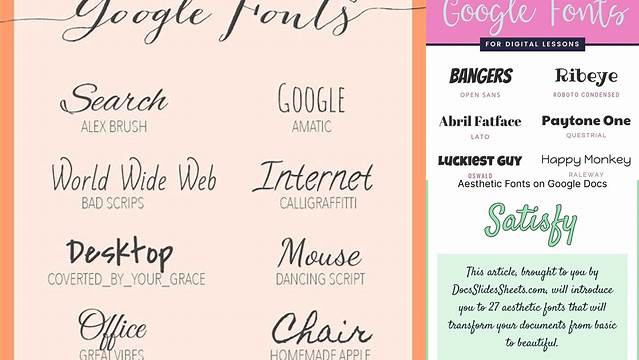
Aesthetic Cursive Fonts On Google Docs: Guide
Hey guys! Ever wanted to make your Google Docs look super chic and stylish? One of the easiest ways to do that is by using aesthetic cursive fonts. They add a touch of elegance and personality to your documents, whether you're writing a cover letter, a creative piece, or even just taking notes. This guide will walk you through everything you need to know about using aesthetic cursive fonts in Google Docs, from finding them to installing them and making the most of them. Let’s dive in!
1. Understanding Aesthetic Fonts
Before we jump into the specifics of Google Docs, let's first understand what makes a font aesthetic. Aesthetic fonts are all about visual appeal and creating a certain mood or feeling. They often have unique curves, flourishes, and overall designs that stand out from more traditional fonts like Arial or Times New Roman. When it comes to cursive fonts, the key is to find one that's both beautiful and readable. There’s no point in having a gorgeous font if nobody can decipher your writing, right? So, think about the overall vibe you're going for. Are you aiming for something elegant and formal, or something more playful and whimsical? This will help you narrow down your choices and pick the perfect aesthetic cursive font for your project. Remember, the right font can make your document not only look better but also communicate your message more effectively.
2. Why Use Cursive Fonts in Google Docs?
So, why bother using cursive fonts in Google Docs anyway? Well, for starters, they can add a unique flair and personality to your documents. Think about it – a standard font like Calibri is perfectly functional, but it doesn't exactly scream “style.” Cursive fonts, on the other hand, can make your work stand out and give it a more polished, professional look. Imagine you’re crafting a resume or a cover letter. Using an aesthetic cursive font for your name or headings can instantly elevate the document and make a strong first impression. Plus, using different fonts can be a fun way to express your creativity and make your documents more engaging. Whether you’re working on a school project, a business proposal, or even just a personal letter, the right cursive font can make all the difference. It’s all about adding that little extra touch that shows you care about the details.
3. Finding Aesthetic Cursive Fonts
Okay, so you're convinced that aesthetic cursive fonts are the way to go. But where do you find them? Luckily, there are tons of resources out there. One of the easiest places to start is within Google Docs itself. Google Docs has a decent selection of built-in fonts, including some lovely cursive options. To access these, just click on the font dropdown menu in the toolbar and scroll through the list. If you don't find exactly what you're looking for, click on "More fonts" at the bottom of the menu. This will open a window where you can browse and add even more fonts to your Google Docs library. Beyond Google Docs, there are also numerous websites like Google Fonts, DaFont, and FontSpace that offer a huge variety of free and premium fonts. These sites are goldmines for finding unique and stylish cursive fonts that will make your documents truly shine. Just be sure to check the licensing terms before using any font, especially for commercial projects.
4. Installing Fonts in Google Docs
5. Using Google Fonts
6. Popular Cursive Fonts for Google Docs
Okay, let’s get into some specific recommendations! There are tons of popular cursive fonts out there that work beautifully in Google Docs. One perennial favorite is Pacifico, a casual and friendly cursive that’s perfect for adding a touch of warmth to your documents. Another great option is Great Vibes, an elegant and formal script that's ideal for invitations, headings, or anything where you want to make a statement. For something a little more whimsical, check out Dancing Script. It has a playful bounce that makes it great for informal projects. If you’re looking for a font that’s both stylish and readable, consider Lobster. It has a bold, retro feel that works well in a variety of contexts. And don’t forget about Montserrat Alternates, which offers a clean and modern take on cursive. These are just a few suggestions to get you started, but there are countless other fantastic options out there. The best way to find your perfect font is to experiment and see what resonates with you.
7. Pairing Cursive Fonts with Other Fonts
One of the keys to making aesthetic cursive fonts really shine is knowing how to pair them with other fonts. You wouldn't want to use cursive for your entire document – it can become overwhelming and hard to read. Instead, use it strategically for headings, subheadings, or to highlight important information. The trick is to pair your cursive font with a clean, simple sans-serif or serif font for the body text. Think of it like this: the cursive font is the star of the show, and the other font is the supporting cast. Some classic pairings include Great Vibes with Open Sans, Pacifico with Lato, and Dancing Script with Montserrat. The goal is to create a visual contrast that's pleasing to the eye. A good rule of thumb is to avoid pairing two very decorative fonts together, as this can create a cluttered look. Instead, let the cursive font be the focal point and choose a more understated font for the rest of your text. Trust me, the right font pairing can take your document from drab to fab in an instant!
8. Using Cursive Fonts for Headings
As we touched on earlier, cursive fonts are fantastic for headings. They instantly draw the eye and add a touch of personality to your document. When using cursive for headings, make sure the font is large enough to be easily readable, but not so large that it overwhelms the rest of the page. A good starting point is to use a font size that's a few points larger than your body text. Also, consider the overall tone of your document. If you're writing something formal, like a business report, you might want to opt for a more elegant and refined cursive font. On the other hand, if you're working on a creative project or a personal letter, you can get away with something a little more playful and whimsical. Remember, the heading is the first thing people see, so it's your chance to make a strong impression. Choose a cursive font that reflects the overall style and message of your document, and you'll be well on your way to creating a visually stunning piece.
9. Using Cursive Fonts for Body Text
While aesthetic cursive fonts are great for headings and accents, using them for large blocks of body text can be tricky. The main reason is readability. Cursive fonts, by their nature, tend to be more decorative and less straightforward than standard fonts like Arial or Times New Roman. This can make them difficult to read if used extensively. However, that doesn't mean you can never use cursive for body text. If you do choose to go this route, make sure to select a cursive font that's relatively clean and easy to read. Avoid anything too ornate or with overly elaborate flourishes. Also, pay attention to the font size and line spacing. Using a slightly larger font size and generous line spacing can help improve readability. Ultimately, it's about striking a balance between aesthetics and functionality. If you're not sure whether a cursive font is working for your body text, get a second opinion. Sometimes a fresh pair of eyes can help you make the right decision.
10. Cursive Fonts for Resumes and Cover Letters
When it comes to resumes and cover letters, choosing the right font is crucial. You want to make a good impression, but you also need to ensure your document is professional and easy to read. This is where aesthetic cursive fonts can come in handy, but you need to use them judiciously. A cursive font can be a great way to add a touch of personality and elegance to your resume or cover letter, especially for your name or headings. However, it's generally best to avoid using cursive for the main body text, as it can be harder to read and might not come across as professional. Instead, opt for a clean and classic font like Arial, Calibri, or Times New Roman for the bulk of your text. If you do choose to use cursive, make sure it's a relatively simple and legible style. Great Vibes or Montserrat Alternates are good options. Remember, the goal is to make your resume stand out in a positive way, so use cursive sparingly and strategically.
11. Cursive Fonts for Invitations
Now, let's talk about a context where cursive fonts really shine: invitations! Whether you're designing invitations for a wedding, a birthday party, or any other special event, aesthetic cursive fonts can add a touch of elegance and sophistication. Cursive fonts are perfect for conveying a sense of formality and style, making them a natural choice for invitations. When selecting a cursive font for your invitations, consider the overall tone of the event. For a formal wedding, you might choose a classic and refined script like Great Vibes or Alex Brush. For a more casual gathering, you could opt for something a little more playful, like Dancing Script or Pacifico. The key is to choose a font that reflects the spirit of the occasion. And don't be afraid to get creative! You can use cursive fonts for the main text of the invitation, or just for headings and accents. Just make sure the font is easy to read, especially for important details like the date, time, and location.
12. Cursive Fonts for Creative Projects
If you're working on a creative project, like a poster, a greeting card, or a social media graphic, aesthetic cursive fonts can be a fantastic way to add visual interest and personality. Creative projects are all about expressing yourself, and the right font can help you convey the mood and message you're going for. Whether you want something elegant and sophisticated, playful and whimsical, or bold and eye-catching, there's a cursive font out there that will fit the bill. When using cursive fonts in creative projects, don't be afraid to experiment with different styles and combinations. You can mix cursive fonts with other fonts, play with different sizes and colors, and even add decorative elements like flourishes or swirls. The goal is to create a design that's visually appealing and that effectively communicates your message. Just remember to keep readability in mind, especially if your project includes a lot of text.
13. Cursive Fonts for Personal Letters
In the age of email and text messages, a handwritten letter can feel extra special. And if you're writing a personal letter, using an aesthetic cursive font can add an extra touch of warmth and personality. Cursive fonts evoke a sense of intimacy and thoughtfulness, making them perfect for expressing heartfelt sentiments. When choosing a cursive font for a personal letter, consider your own handwriting style. If you have a naturally elegant script, you might want to opt for a more formal cursive font like Great Vibes or Allura. If your handwriting is more casual, a font like Pacifico or Dancing Script might be a better fit. The goal is to choose a font that feels authentic to you and that reflects your personal style. And don't worry about making it perfect. The beauty of a handwritten letter is in its imperfections. A little bit of character adds to the charm.
14. Combining Cursive Fonts with Sans-Serif Fonts
We've already talked about pairing cursive fonts with other fonts, but let's delve a little deeper into the specific combination of cursive fonts and sans-serif fonts. Sans-serif fonts are those that don't have the little "feet" or serifs at the ends of the strokes, like Arial, Helvetica, and Open Sans. These fonts tend to have a clean and modern look, which makes them a great complement to the more decorative style of cursive fonts. When combining aesthetic cursive fonts with sans-serif fonts, the key is to create a balance. Use the cursive font for headings, subheadings, or accents, and the sans-serif font for the body text. This will help create a visual hierarchy and make your document easy to read. Some popular pairings include Great Vibes with Open Sans, Pacifico with Lato, and Lobster with Montserrat. The contrast between the elegant curves of the cursive font and the clean lines of the sans-serif font can create a visually stunning effect.
15. Combining Cursive Fonts with Serif Fonts
Just as cursive fonts pair well with sans-serif fonts, they can also work beautifully with serif fonts. Serif fonts, like Times New Roman, Georgia, and Garamond, have those little serifs at the ends of the strokes, giving them a more traditional and formal look. When combining cursive fonts with serif fonts, you can create a sophisticated and timeless aesthetic. The contrast between the flowing curves of the cursive font and the classic serifs of the serif font can add a touch of elegance to your document. Some great pairings include Mrs Saint Delafield with Playfair Display, Alex Brush with Merriweather, and Allura with Georgia. The key is to choose a serif font that complements the style of your cursive font. If you're using a more ornate cursive, a simpler serif font will work best. If your cursive font is relatively clean and simple, you can pair it with a slightly more decorative serif font. As always, experiment and see what looks best to your eye.
16. Adjusting Font Size for Cursive Fonts
One important consideration when using aesthetic cursive fonts is font size. Cursive fonts, because of their decorative nature, often appear smaller than other fonts at the same point size. This means you might need to increase the font size slightly to ensure readability. A good rule of thumb is to experiment with different sizes and see what looks best on the page. If you're using cursive for headings, you might want to make them a few points larger than your body text. If you're using cursive for body text (which, as we discussed, should be done sparingly), you might need to go even larger. Also, consider the specific font you're using. Some cursive fonts are naturally more legible than others, so you might be able to get away with a smaller size. Ultimately, it's about finding the right balance between aesthetics and readability. You want your font to look beautiful, but you also need to make sure your message is clear.
17. Line Spacing and Cursive Fonts
Another factor that can impact the readability of cursive fonts is line spacing. Cursive fonts, with their flowing strokes and connecting letters, often benefit from a little extra space between the lines. This can help prevent the letters from feeling cramped and make the text easier to read. When using cursive fonts, try increasing the line spacing slightly. A setting of 1.5 or even double spacing can make a big difference. You can adjust line spacing in Google Docs by going to Format > Line spacing and selecting your desired setting. Just like with font size, it's a good idea to experiment and see what looks best. The ideal line spacing will depend on the specific font you're using, the font size, and the overall layout of your document. A little extra space can go a long way in making your cursive fonts shine.
18. Color Considerations for Cursive Fonts
Color is another important element to consider when using aesthetic cursive fonts. The color you choose for your font can have a big impact on its readability and overall aesthetic appeal. In general, it's best to stick with colors that provide a good contrast with the background. For example, if you're using a white background, a dark font color like black or navy blue will be easiest to read. If you're using a dark background, a light font color like white or cream will work best. You can also use color to highlight certain words or phrases in your cursive font. For example, you might use a bold color for headings or important keywords. Just be careful not to overdo it. Too much color can be distracting and make your document look cluttered. As with all design choices, it's about finding the right balance. Experiment with different colors and see what works best for your specific font and project.
19. Kerning and Tracking with Cursive Fonts
Kerning and tracking are two typography terms that refer to the spacing between letters in a font. Kerning refers to the space between specific pairs of letters, while tracking refers to the overall spacing between all letters in a word or line. Adjusting kerning and tracking can be particularly important when using cursive fonts, as these fonts often have unique letter shapes and connections. Sometimes, the default spacing in a cursive font might not be ideal, leading to awkward gaps or overlapping letters. By adjusting kerning and tracking, you can fine-tune the spacing to create a more balanced and visually appealing look. Unfortunately, Google Docs doesn't offer advanced kerning and tracking controls. However, if you're using other design software like Adobe InDesign or Illustrator, you can take advantage of these features to perfect your cursive font typography.
20. Common Mistakes to Avoid with Cursive Fonts
Using aesthetic cursive fonts can be a great way to enhance your documents, but there are also some common mistakes to avoid. One of the biggest is overusing cursive fonts. As we've discussed, cursive fonts are best used sparingly, for headings, accents, or other special elements. Using cursive for large blocks of body text can make your document difficult to read. Another mistake is choosing a cursive font that's too ornate or illegible. While some cursive fonts are beautiful and elaborate, they might not be practical for all situations. Always prioritize readability. It's also important to consider the overall tone of your document. A playful or whimsical cursive font might be perfect for a personal letter or creative project, but it might not be appropriate for a formal business report. Finally, pay attention to font size and spacing. Cursive fonts often need to be slightly larger and have more line spacing than other fonts to ensure readability. By avoiding these common mistakes, you can make the most of cursive fonts and create visually stunning documents.
21. Legibility of Different Cursive Styles
Not all cursive fonts are created equal, especially when it comes to legibility. Some cursive styles are very clean and easy to read, while others are more decorative and can be harder to decipher. When choosing a cursive font, it's important to consider the context in which it will be used and how much text will be in the font. For example, if you're using cursive for a short heading, you might be able to get away with a more elaborate style. But if you're using cursive for a longer passage of text, you'll want to opt for a font that's highly legible. Fonts like Allura, Montserrat Alternates, and Great Vibes strike a good balance between aesthetics and readability. Avoid fonts with overly complex swirls or connections, as these can be difficult to read, especially at smaller sizes. Always test your chosen font by printing out a sample or viewing it on different devices to ensure it's clear and easy on the eyes.
22. Cursive Fonts and Accessibility
When using aesthetic cursive fonts, it's important to think about accessibility. Not everyone can read cursive fonts easily, especially people with dyslexia or visual impairments. This doesn't mean you should never use cursive fonts, but it does mean you should use them thoughtfully and sparingly. Avoid using cursive for large blocks of text or for essential information. Instead, use cursive for headings, accents, or decorative elements, and always provide a clear and legible alternative for the main body text. You can also use features like alt text for images that contain cursive text to provide a textual description for screen readers. Remember, the goal is to make your documents accessible to as many people as possible. By being mindful of accessibility, you can ensure that your beautiful cursive fonts don't inadvertently exclude anyone.
23. The Psychology of Cursive Fonts
Have you ever thought about the psychology of cursive fonts? Fonts, like colors, can evoke certain emotions and associations. Cursive fonts, in particular, often convey a sense of elegance, sophistication, and tradition. They can also evoke feelings of nostalgia or intimacy, making them a good choice for personal letters or invitations. However, cursive fonts can also be perceived as old-fashioned or formal, so it's important to consider the overall tone and message of your document when choosing a font. For example, a bold and modern cursive font might be a good choice for a branding project that wants to convey a sense of both style and innovation. On the other hand, a classic and refined cursive font might be more appropriate for a wedding invitation. By understanding the psychology of different fonts, you can make more informed choices and create documents that effectively communicate your message.
24. Trends in Cursive Font Design
Like any design element, aesthetic cursive fonts go through trends and evolutions. What was popular a few years ago might feel dated today, and new styles are constantly emerging. Currently, there's a trend towards more modern and minimalist cursive fonts. These fonts often have clean lines and a less ornate feel than traditional scripts, making them more versatile for a variety of applications. There's also a growing interest in hand-drawn and brush-style cursive fonts, which add a personal and artistic touch. These fonts can be a great choice for creative projects or branding materials. Of course, classic cursive styles like Spencerian and Copperplate are always in style, especially for formal occasions like weddings. Staying up-to-date on font trends can help you choose fonts that feel fresh and modern, but it's also important to choose fonts that are timeless and appropriate for your specific project.
25. Creating Your Own Cursive Font
If you're feeling ambitious, you might even consider creating your own cursive font! While it's a complex process, it can be a rewarding way to express your creativity and create a truly unique typeface. There are several software programs available that can help you design fonts, including FontLab Studio, Glyphs, and FontForge (which is free and open-source). The basic process involves drawing each letter, number, and symbol individually, and then defining the spacing and kerning between them. You'll also need to create different weights and styles (like bold and italic) if you want a complete font family. Creating a font takes time, patience, and a good eye for detail, but the end result can be a beautiful and personal typeface that you can use in your own projects or even share with others. If you're new to font design, there are plenty of tutorials and resources available online to help you get started.
26. Optimizing Cursive Fonts for Printing
If you're planning to print documents that use aesthetic cursive fonts, there are a few things to keep in mind to ensure they look their best. One important consideration is the resolution of your printer. Lower-resolution printers might not be able to accurately reproduce the fine details of some cursive fonts, resulting in blurry or jagged edges. If possible, print at a higher resolution (300 dpi or higher) to get the best results. Also, consider the type of paper you're using. Smooth, high-quality paper will generally produce better results than rough or textured paper. Finally, test print your document before printing a large batch to make sure the font looks clear and legible. You might need to adjust the font size or spacing slightly to optimize it for printing. By taking these steps, you can ensure that your printed documents look as beautiful as they do on screen.
27. Cursive Fonts in Branding and Marketing
Cursive fonts can be a powerful tool in branding and marketing, helping to convey a particular image or message to your audience. The use of aesthetic cursive fonts in a logo or marketing materials can communicate elegance, luxury, or a personal touch, depending on the specific font chosen. For example, a high-end fashion brand might use a sophisticated script font to convey exclusivity and style, while a small business might use a friendly and approachable cursive font to create a sense of warmth and connection. When using cursive fonts in branding, it's important to consider your target audience and the overall brand identity you're trying to create. Choose a font that aligns with your brand values and that will resonate with your customers. Also, remember that legibility is key. Your logo and marketing materials need to be easily readable, so avoid cursive fonts that are too ornate or difficult to decipher. Used strategically, cursive fonts can help your brand stand out and make a lasting impression.
28. Cursive Fonts in Web Design
While cursive fonts can add a touch of elegance and personality to web designs, they should be used sparingly and strategically. As we've discussed, legibility is crucial, and cursive fonts can be challenging to read on screen, especially for large blocks of text. However, aesthetic cursive fonts can be effective for headings, logos, or other decorative elements. When using cursive fonts on the web, make sure to choose fonts that are optimized for screen display. Some cursive fonts might look beautiful in print but appear blurry or pixelated on a website. Also, consider the loading time of your fonts. Large font files can slow down your website, which can negatively impact user experience. Use font loading techniques like font subsets or font display swaps to improve performance. Finally, test your website on different devices and browsers to ensure your cursive fonts are rendering correctly. With careful planning and execution, you can use cursive fonts to enhance your web designs without sacrificing readability or performance.
29. Future of Cursive Fonts in Digital Design
What does the future hold for cursive fonts in digital design? As technology continues to evolve, so too will the way we use and perceive fonts. While some might argue that cursive fonts are becoming outdated in the digital age, others believe they will continue to play an important role, albeit in new and innovative ways. We may see a resurgence of hand-drawn and calligraphic styles, reflecting a desire for more personalized and authentic designs. Variable fonts, which allow for greater flexibility and customization, could also play a role in the future of cursive fonts, enabling designers to create unique and dynamic typography. Accessibility will continue to be a key consideration, leading to the development of cursive fonts that are more legible and inclusive. Ultimately, the future of cursive fonts in digital design will depend on how designers and users adapt and embrace these evolving technologies and trends.
30. Resources for Learning More About Cursive Fonts
If you're eager to learn more about aesthetic cursive fonts and typography in general, there are tons of fantastic resources available online and in print. Websites like Google Fonts, DaFont, and FontSpace are great places to browse and download fonts, and many offer articles and tutorials on typography and font pairing. Online courses on platforms like Skillshare and Coursera can provide in-depth instruction on typography principles and font design. Books like "The Elements of Typographic Style" by Robert Bringhurst and "Thinking with Type" by Ellen Lupton are considered classics in the field of typography and are packed with valuable insights. You can also find inspiration and advice from design blogs and communities like Dribbble and Behance. Whether you're a beginner or an experienced designer, there's always something new to learn about the fascinating world of cursive fonts and typography. So, dive in, explore, and let your creativity flow!